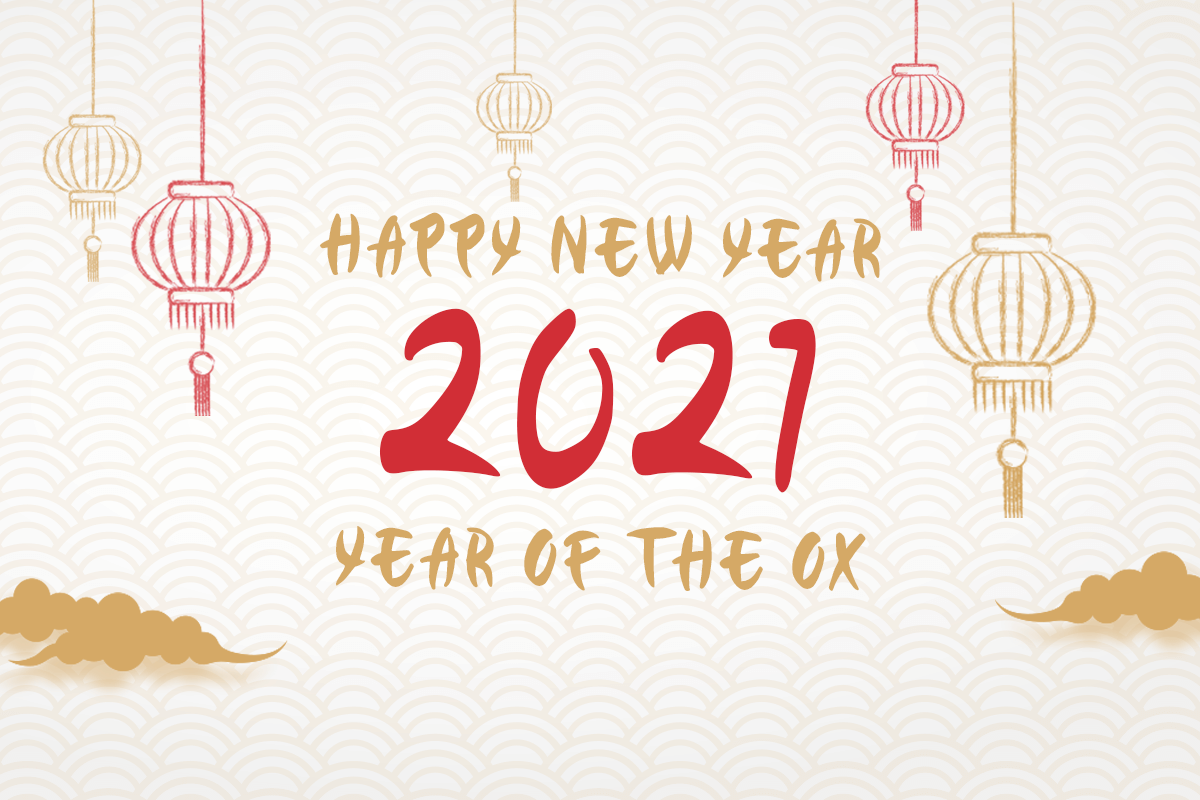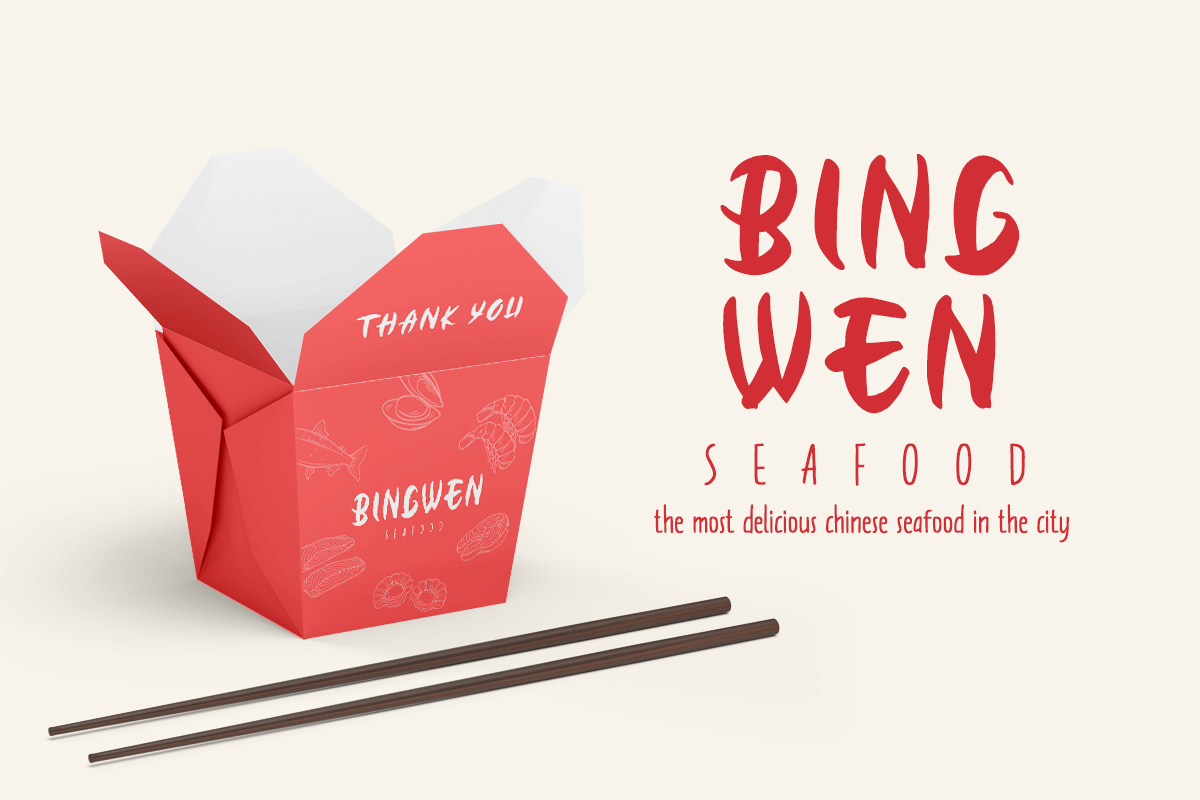
China Town
-Chinese Brush Font
China Town - a Modern Chinese Brush Font. Inspired from beauty and feminine style very good for signature, stationery, logo, typography quotes, magazine or book cover, website needs.